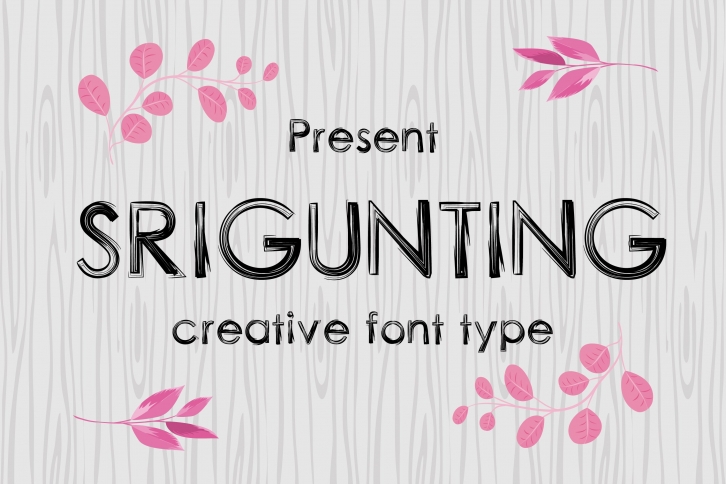
SRIGUNTING is a gorgeous font that was realeased on June 1, 2021. The font can be used in many style contexts and design environments. Perfect for invitations, magazines, websites, logos, and more! It was designed by curutdesign and the file size is 9.49 MB. Thanks for checking out this font!